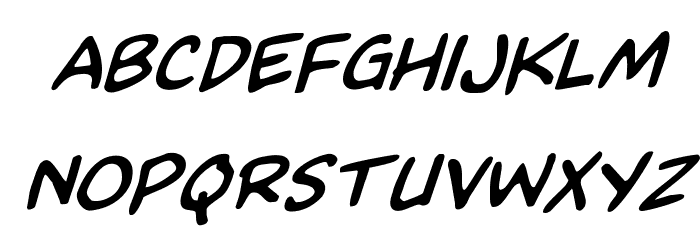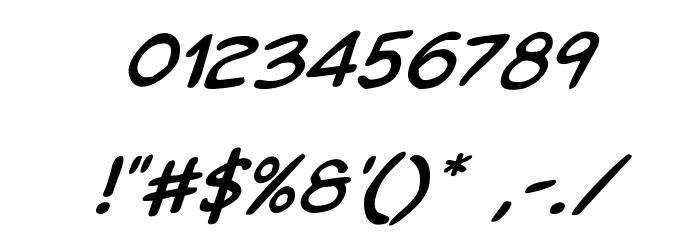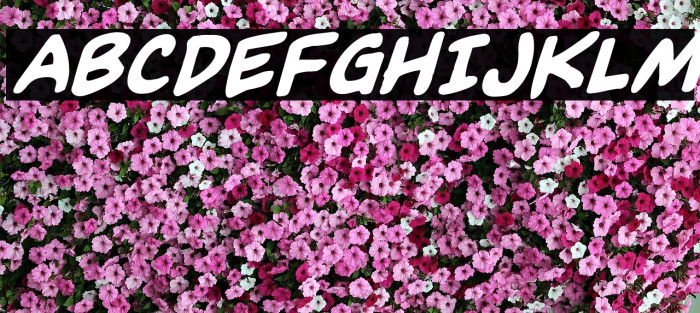
Kangaroo Court Rotalic Font
This font features a bold and dynamic script style, characterized by its slanted and fluid letterforms that convey a sense of motion and energy. The uppercase and lowercase letters maintain a consistent slant, enhancing the italicized appearance. The characters are bold, with a medium contrast between thick and thin strokes, giving them a strong presence. The numbers and special characters are designed to match the overall style, ensuring uniformity across all glyphs. The font's playful and energetic nature makes it suitable for projects that require a lively and informal touch.
A bold, italic script font with dynamic and fluid letterforms.
- Proposed Projects: Ideal for branding, posters, and creative projects that require a lively and energetic typeface.